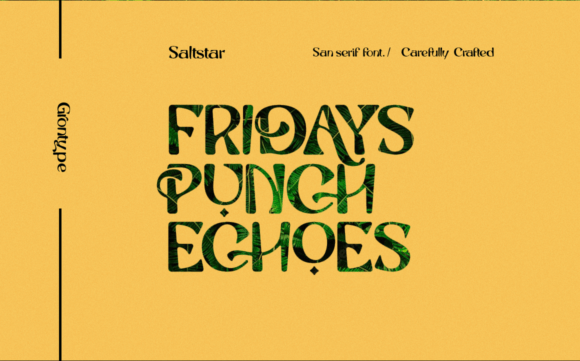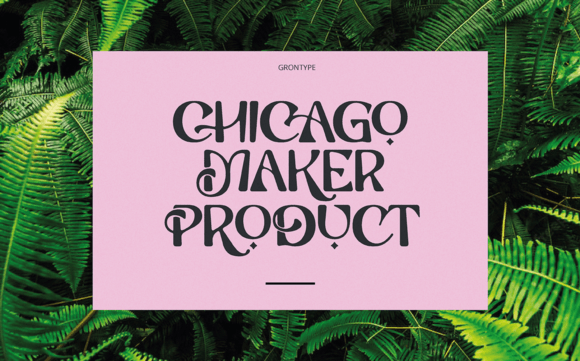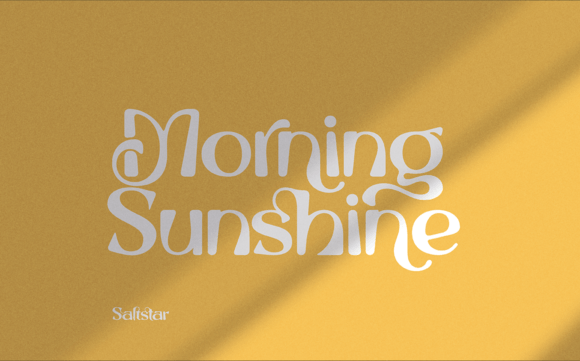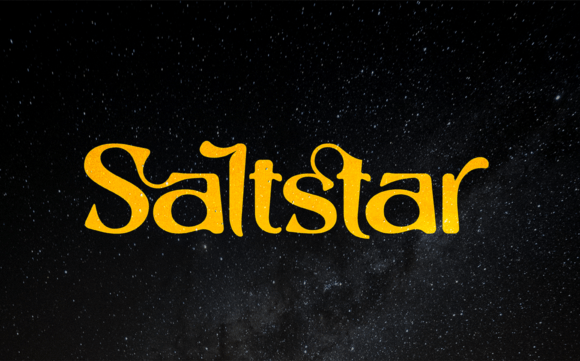
Introduction to Saltstar Font
Saltstar is a modern elegant sans serif font, created with care.
The font is a rounded point and has unique shapes It comes with extra ligatures and alternatives.
Key Features of Saltstar Font